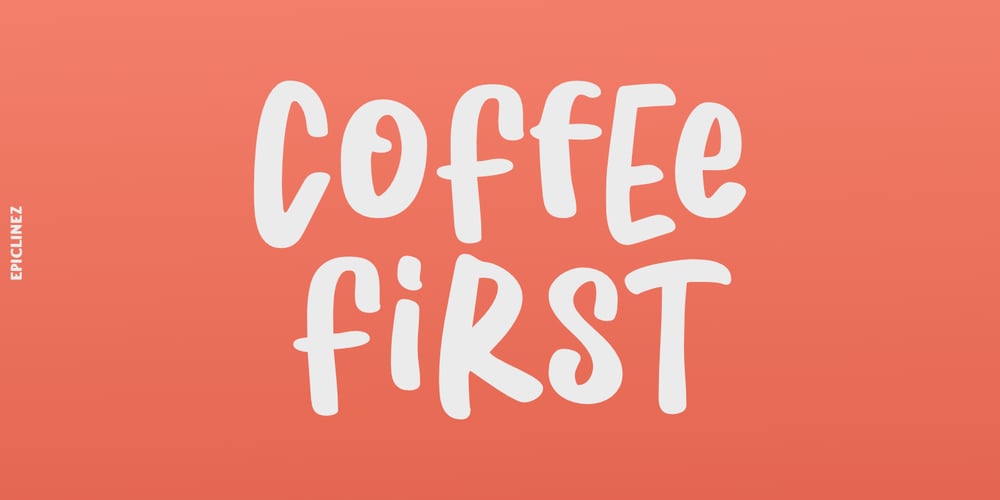
Coffee First Font Family was designed by Aldy Sidik and published by Epiclinez. Coffee First contains 1 styles and family package options. Coffee First is a bold handwritten font, carefully handcrafted to become a true favorite. Its casual charm makes it appear wonderfully down-to-earth, readable, and ultimately, incredibly versatile. Coffee First will look outstanding in any context, whether it’s being used on busy backgrounds or as a standalone headline!